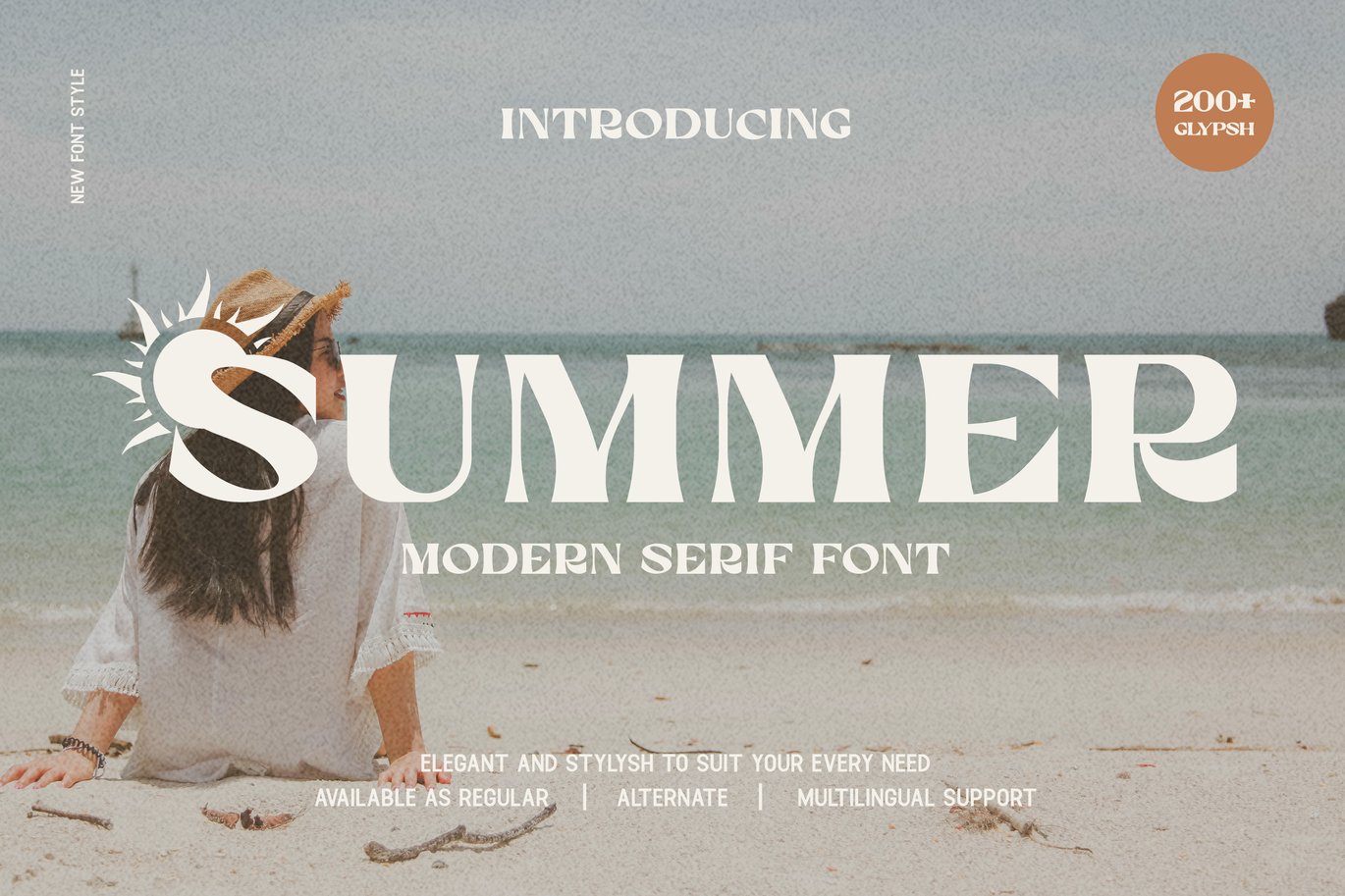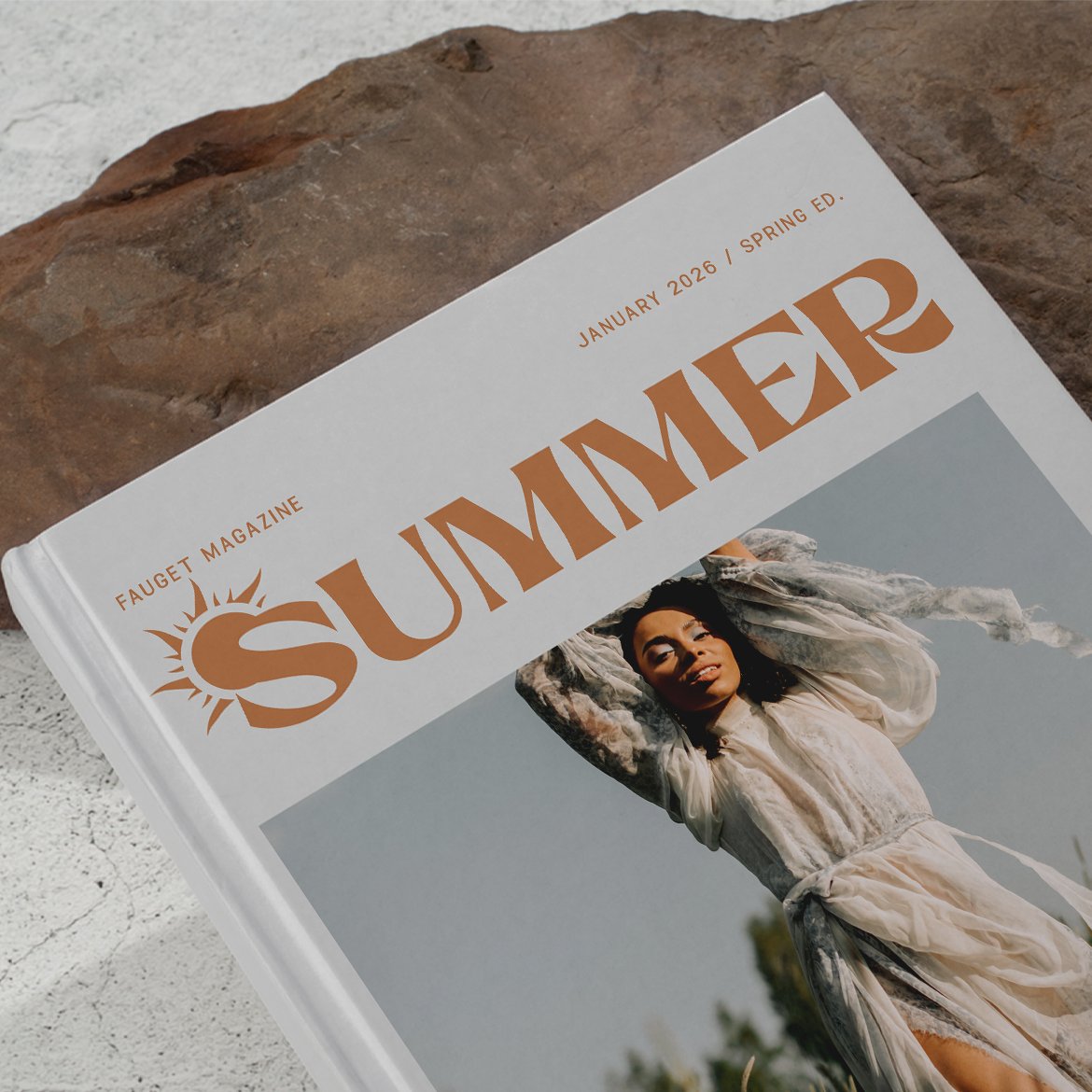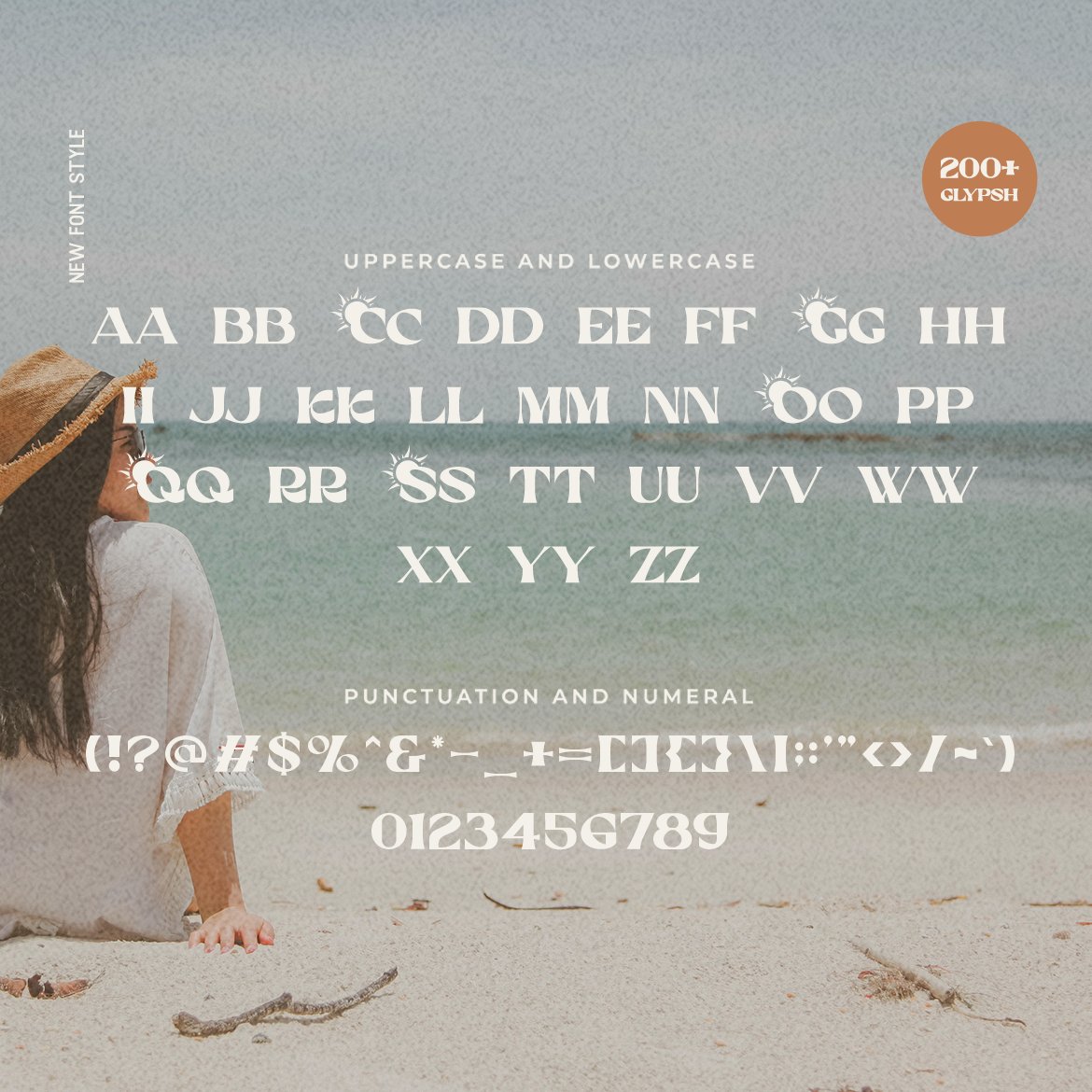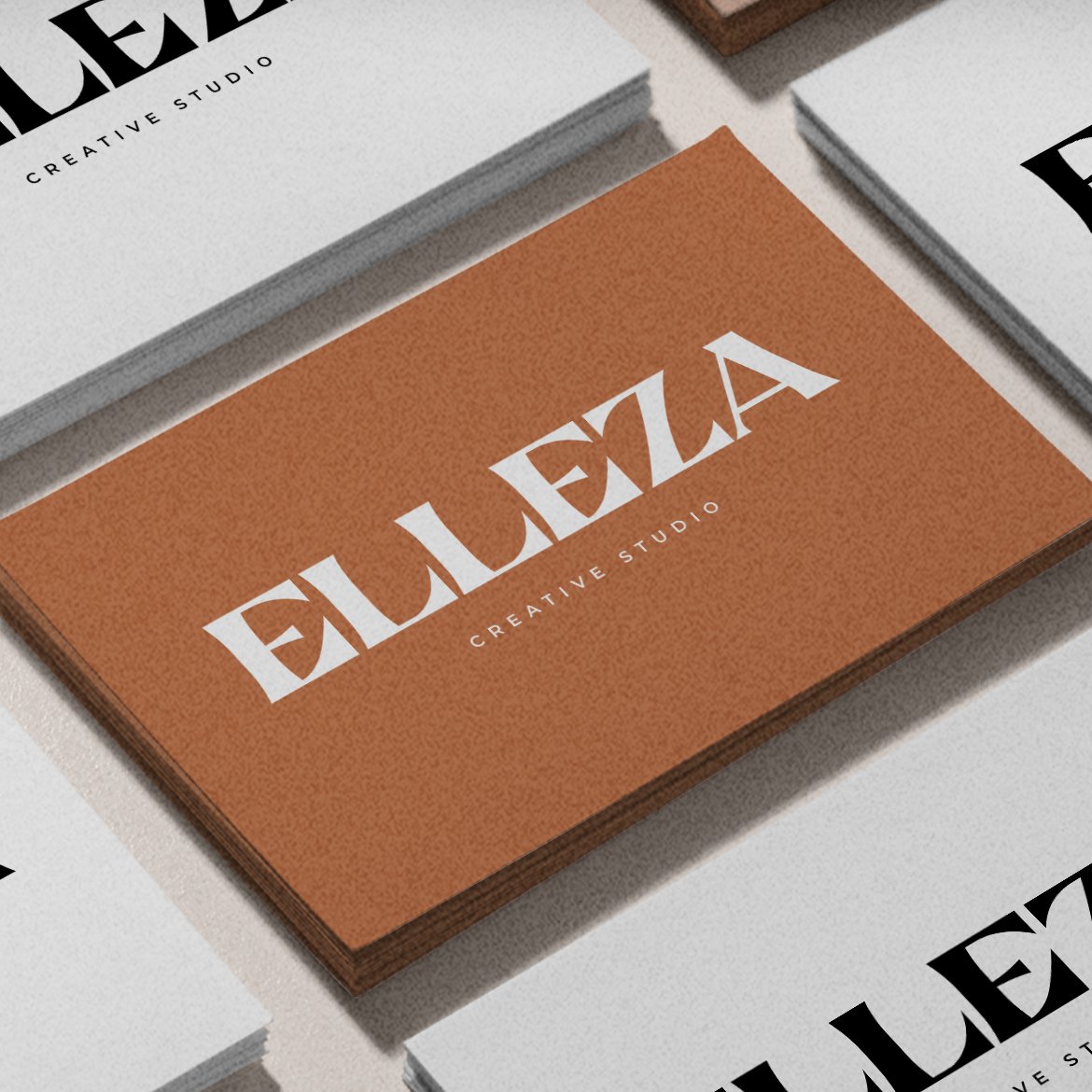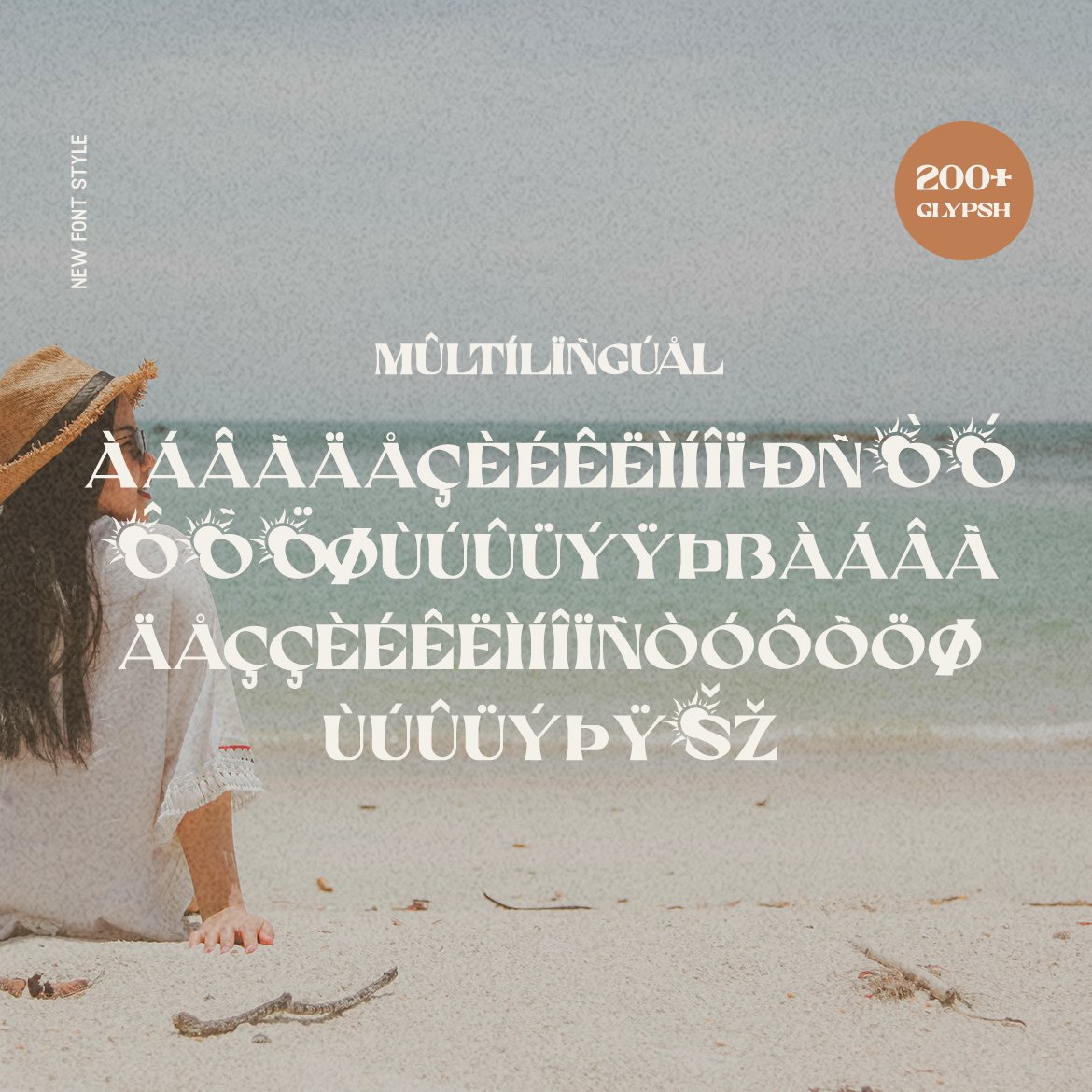
Summer – A Modern Serif Font
Summer is a modern serif font that captures the warmth and vibrancy of the season. With its elegant curves and refined serifs, Summer is perfect for a wide range of design projects, from fashion editorials and lifestyle blogs to wedding invitations and high-end branding. This font exudes a sense of sophistication and freshness, making it an ideal choice for those looking to add a touch of class to their work.
Designed with a perfect balance between classic serif elements and contemporary styling, Summer offers readability and visual appeal in every application. Its versatile nature allows it to shine in both headlines and body text, ensuring your message is communicated clearly and stylishly. The font’s extensive character set and multilingual support make it a valuable asset for designers targeting a global audience.
Embrace the elegance and charm of Summer, a font that combines timeless serif tradition with modern design sensibilities. Its distinctive style and adaptability make it a must-have for any designer aiming to create memorable and polished work. Elevate your projects with Summer and enjoy the perfect blend of elegance and modernity.